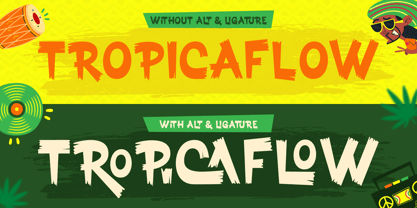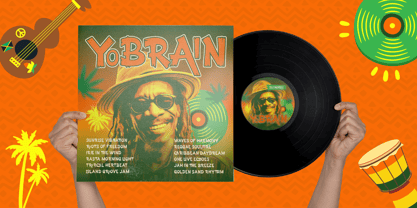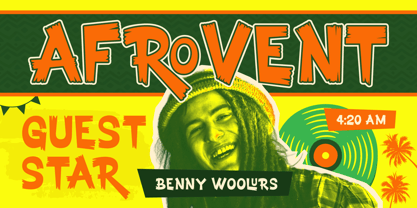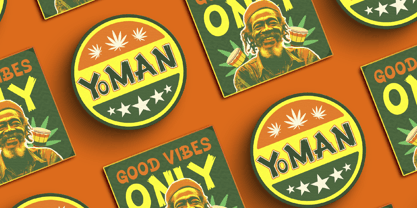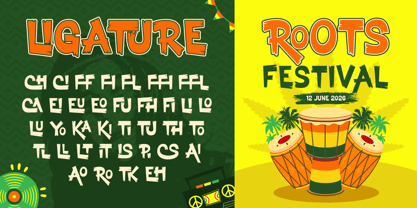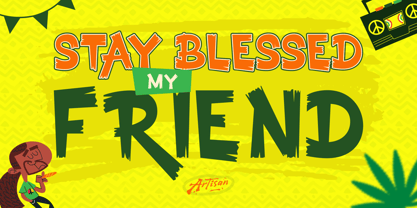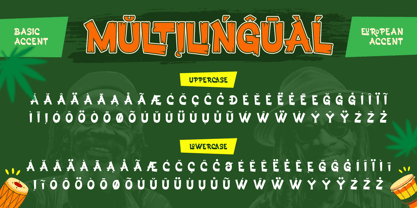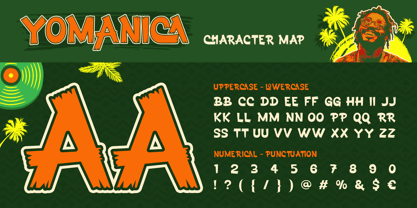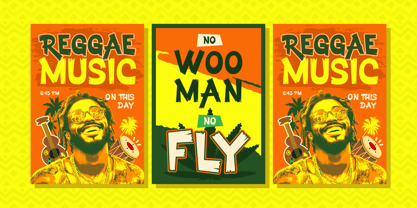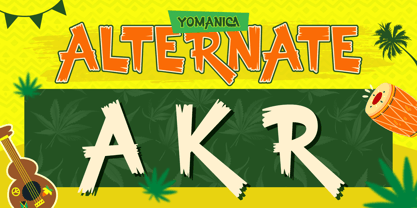
Yomanica
The Yomanica Font Family was designed by Meidy Meichico and published by Artisan Themes. Yomanica contains 2 styles and family package options. More about this family
Yomanica is a bold reggae display font that brings sunshine, rhythm, and good vibes straight into your designs. Inspired by reggae culture, tropical visuals, and laid-back island energy, Yomanica is made to stand out loud, fun, and full of character. With its chunky hand-crafted strokes and playful shapes, Yomanica delivers a strong visual punch while still feeling friendly and relaxed. This font comes with 2 styles: Regular and Outline, plus ligatures and alternates to keep your typography fresh and expressive. Perfect for music posters, festival flyers, summer branding, streetwear logos, album covers, packaging, social media graphics, and anything that needs a bold tropical twist. Yomanica is not just a font — it’s a vibe. Turn up the volume, feel the rhythm, and let your design groove with Yomanica.